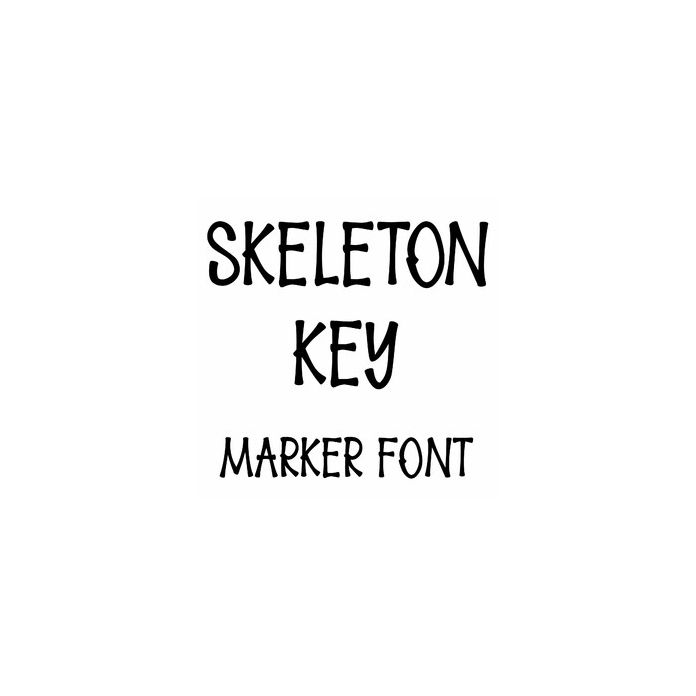
This Halloween font has boney skeleton, pirate, tiki island vibes. Skeleton Key is a versatile handwriting font fun for Halloween crafts, pirate and tiki themes, haunted house signs, Halloween gifts, decorations, labels, stickers, mugs, monograms, t-shirts, and personalization projects. Includes all caps alphabet, numbers, and punctuation.